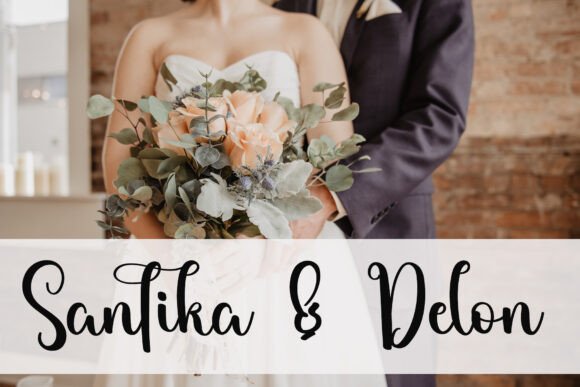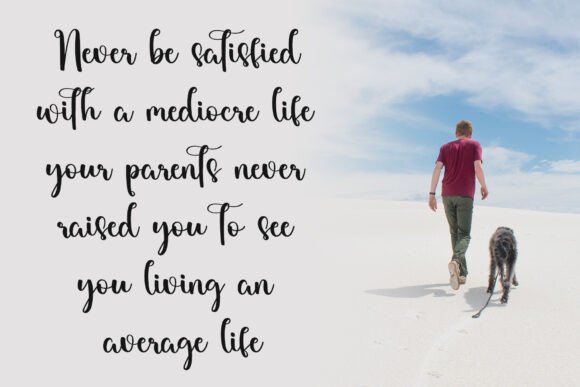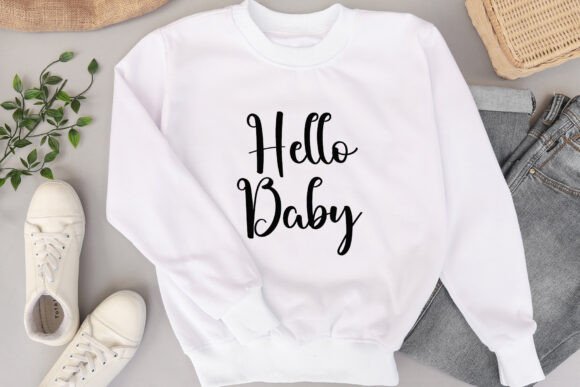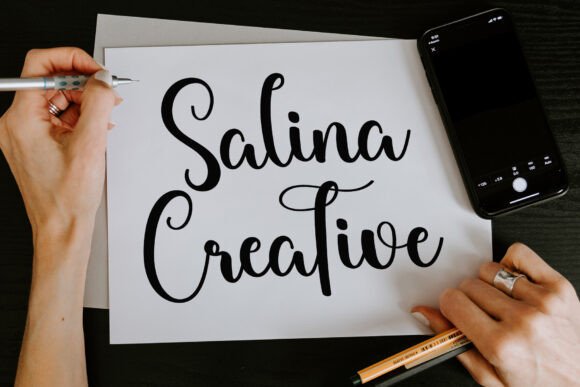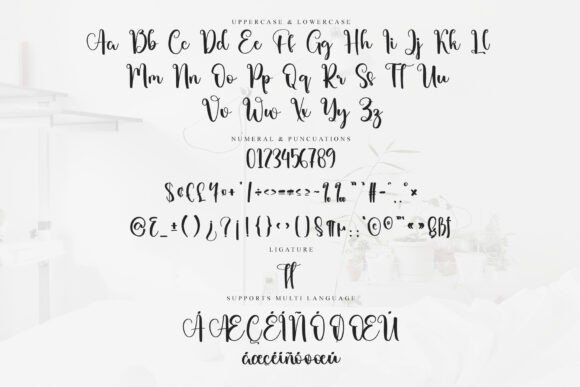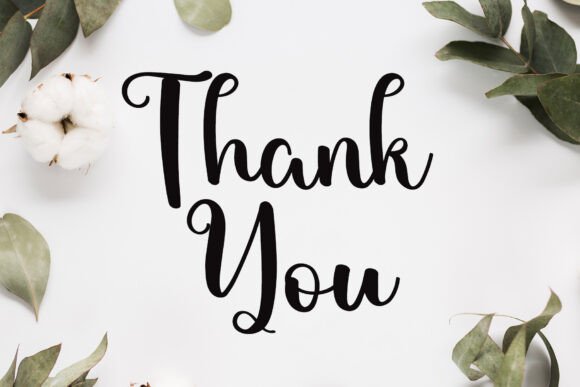
Introduction to Fristy Font
As a designer, have you ever stumbled upon that perfect font that elevates your entire creative project? It’s that moment when all the elements come together, and you know you’ve hit the mark. For me, that moment was when I discovered the Fristy Font. This stunning script handwriting font is more than just a pretty face – it’s a game-changer for any design project that requires a touch of elegance and authority.
With its fluid strokes and commanding presence, the Fristy Font is a high-quality design resource that’s perfect for projects that demand sophistication and style. Whether you’re working on a business logo, a wedding invitation, or a social media campaign, this font is sure to add a touch of personality and power to your design.
Key Features of Fristy Font
- High-quality design with a transparent background, ideal for creative projects
- Unique characteristics include a bold and playful style, making it perfect for titles, headings, and branding
- Perfect for designers and artists working on creative projects, including graphic design, digital art, and more
Honest Review: Fristy Font
As a designer, I’m always on the lookout for high-quality design resources that can elevate my creative projects. Recently, I stumbled upon the Fristy Font, and I’m excited to share my honest review with you.
- ✨ High-quality design: The Fristy Font is well-crafted, with clean lines and a modern aesthetic that’s perfect for a variety of creative projects.
- ✨ Transparent background: The font’s transparent background makes it easy to use in designs with complex backgrounds.
- ⚠️ Limited font styles: While the font is well-designed, it’s only available in a few styles, which might limit its versatility.
- ⚠️ Not suitable for large-scale use: While the font is great for small-scale projects, it might not be the best choice for large-scale use, such as in print or digital advertising.
Tips for Getting the Most Out of Fristy Font
To get the most out of the Fristy Font, use it with a transparent background to create a seamless design experience. Experiment with different font sizes and colors to add depth and visual interest to your project.
The Fristy Font is ideal for a variety of creative projects, including:
- Branding
Q: Does the Fristy Font have a transparent background?
Yes, the Fristy Font comes with a transparent background, making it easy to use in a variety of design scenarios. This feature allows you to layer the font over any image or background without worrying about distracting borders or edges.